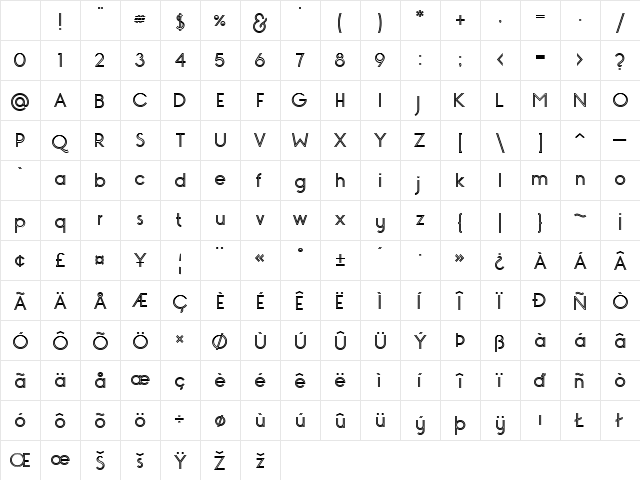
Monopoly is built around its visual character rather than neutral utility - its distinctive forms are designed to make an impression at display sizes.
Font Pairing: Pair with a clean neutral sans-serif for body copy to let Monopoly's character lead without overwhelming the composition.
Pro Tip: Use Monopoly exclusively at display sizes - it was designed to be seen, not read at length. Let a neutral companion handle body copy.